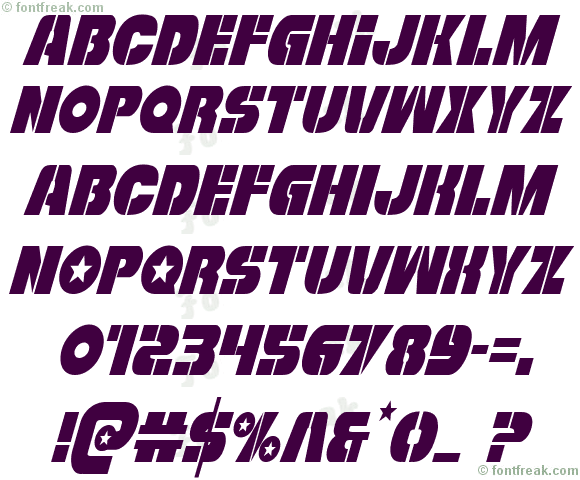
Freedom Fighter Condensed Italic
About Freedom Fighter Condensed Italic
Freedom Fighter Condensed Italic, designed by Daniel Zadorozny in 2012, is a striking display font that falls into the condensed sans-serif category. This font features a bold stroke weight that imparts a sense of strength and dynamism, making it ideal for projects that require a commanding presence. The italic style adds a sense of movement, while the condensed design allows for efficient use of space, making it versatile for various applications. The font showcases moderate contrast in its letterforms, with some decorative elements like star shapes that enhance its thematic focus on freedom and empowerment.
This font is particularly suited for a range of creative uses. It excels in movie posters, where its boldness and unique style can capture attention and convey a sense of action and adventure. Additionally, it works well for music album covers, especially in genres that celebrate rebellion or individuality. Restaurant menus can benefit from the font’s striking appearance, particularly in establishments that aim for a modern, edgy vibe. Furthermore, it can be effectively used in marketing materials for events that promote social causes, where the theme of fighting for freedom is central.
The target audience for Freedom Fighter Condensed Italic includes graphic designers seeking impactful typefaces for their projects, small business owners looking to create memorable branding, and content creators who want to add a bold touch to their visuals. What sets this font apart is its ability to blend strength with style, allowing creators to communicate messages of empowerment and determination effectively. For those interested, the Freedom Fighter Condensed Italic font free download makes it accessible for anyone looking to enhance their design toolkit with a distinctive and memorable typeface.